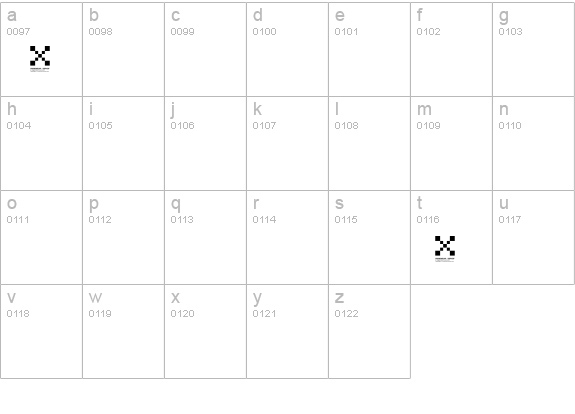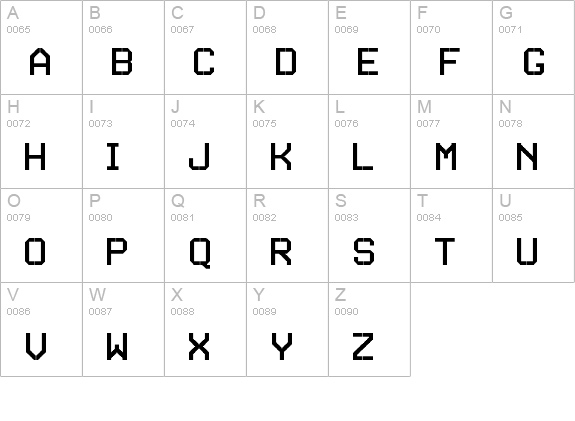
TSERIES B Font Details
Introducing TSERIES B font - a captivating and versatile typeface that effortlessly combines elegance with a modern edge. With its sleek and sophisticated design, TSERIES B is perfect for a wide range of creative projects, from branding to editorial design, signage, and more. This font boasts a unique blend of classic and contemporary elements, making it a timeless choice for any design endeavor. Its clean lines and balanced letterforms create a sense of harmony, while its subtle curves add a touch of artistic flair. The attention to detail in every character of TSERIES B makes it a truly remarkable font that will elevate your designs to new heights. But what sets TSERIES B font apart is not just its stunning aesthetics - it is also available for free! Yes, you read that right. TSERIES B can be freely downloaded from FontsMarket.com, the trusted source for high-quality fonts. This means that you can add this exceptional typeface to your design arsenal without breaking the bank. Whether you're a professional designer or a passionate enthusiast, TSERIES B font offers you the opportunity to create compelling and visually striking designs. Its extensive character set includes uppercase and lowercase letters, numerals, punctuation marks, and special characters, providing you with the versatility needed to bring your creative visions to life. So why wait? Don't miss out on the chance to enhance your design projects with the captivating TSERIES B font. Download it for free at FontsMarket.com today and unlock the potential for limitless creativity.